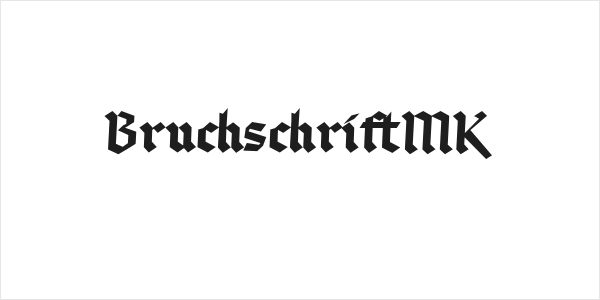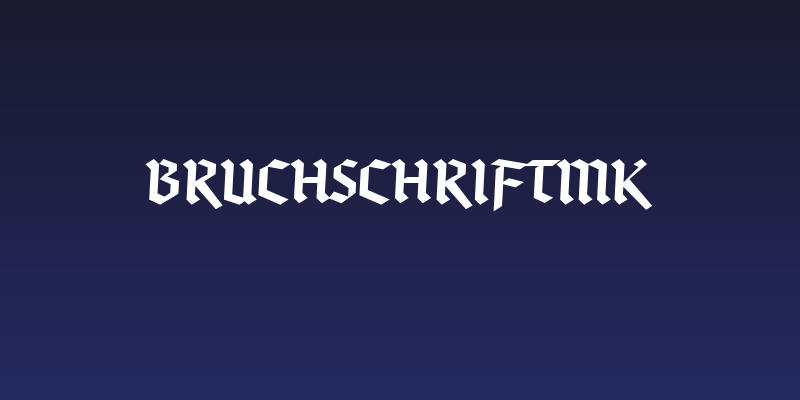
BruchschriftMK Font
BruchschriftMK Description
This font features a bold and striking blackletter style, characterized by its sharp, angular lines and dramatic flourishes. The uppercase letters exhibit a strong presence with their pointed edges and intricate detailing, while the lowercase letters maintain a consistent style with slightly more rounded forms. The numerals are equally bold, maintaining the angular aesthetic, which adds to the overall cohesiveness of the design. Special characters are crafted with the same attention to detail, ensuring they fit seamlessly within the font's style. This font is reminiscent of traditional Gothic scripts, yet it carries a modern edge that makes it versatile for various design applications.
| Proposed Projects | Ideal for projects that require a dramatic and historical touch, such as book covers, posters, branding for vintage-themed products, or any design that seeks to evoke a sense of tradition and strength. |